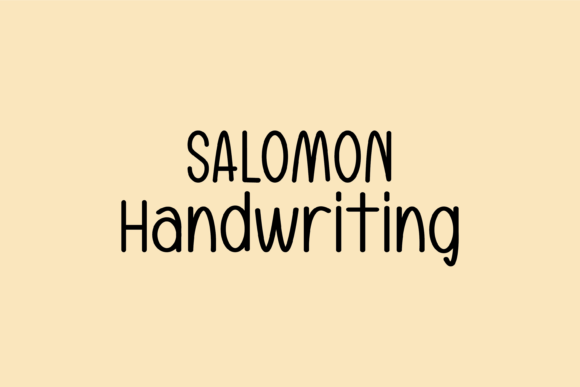
Journey into the realm of beauty, where elegance and allure dance harmoniously. Discover Salomon Font, a script font that captivates hearts and ignites imaginations. Crafted with meticulous care by the talented Woracado, Salomon is a symphony of flowing lines and graceful curves, designed to elevate your creative endeavors to new heights.
Salomon Font: The Epitome of Beauty and Enchantment
Immerse yourself in the world of Salomon, where each letter is a delicate stroke of artistry, reminiscent of a handwritten whisper. Its whimsical nature adds a touch of playfulness, while its inherent quirkiness injects a spark of individuality into your designs. The result? Visual masterpieces that radiate warmth, charm, and an irresistible allure.
A Font Tailored for Your Creative Expressions
With Salomon by your side, the possibilities are endless. This versatile font seamlessly adapts to a myriad of creative projects, becoming an integral part of your artistic vision. Envision wedding invitations adorned with Salomon's elegant touch, where every letter intertwines to create a tale of love and commitment. Craft logos that exude sophistication, where Salomon's graceful lines convey a sense of timeless beauty. Unleash your creativity in advertisements, print materials, and magazines, allowing Salomon's charm to captivate and engage your audience.
Salomon: A Timeless Treasure for Designers
Salomon Font stands as a testament to the enduring power of timeless design. Its classic appeal transcends fleeting trends, ensuring that your creations remain relevant and captivating for years to come. With Salomon as your font of choice, you join a community of discerning designers who appreciate the finer things in life – those who understand the profound impact that a well-chosen font can have on a design.
Embrace the Salomon Experience: Ignite Your Creativity Today
Salomon Font is more than just a font; it's an invitation to embark on a creative odyssey where beauty and elegance reign supreme. Experience the transformative power of Salomon as it breathes life into your designs, captivating your audience with its enchanting allure. Don't let mediocrity stifle your creativity – embrace the Salomon experience today and unlock a world of visual wonders.